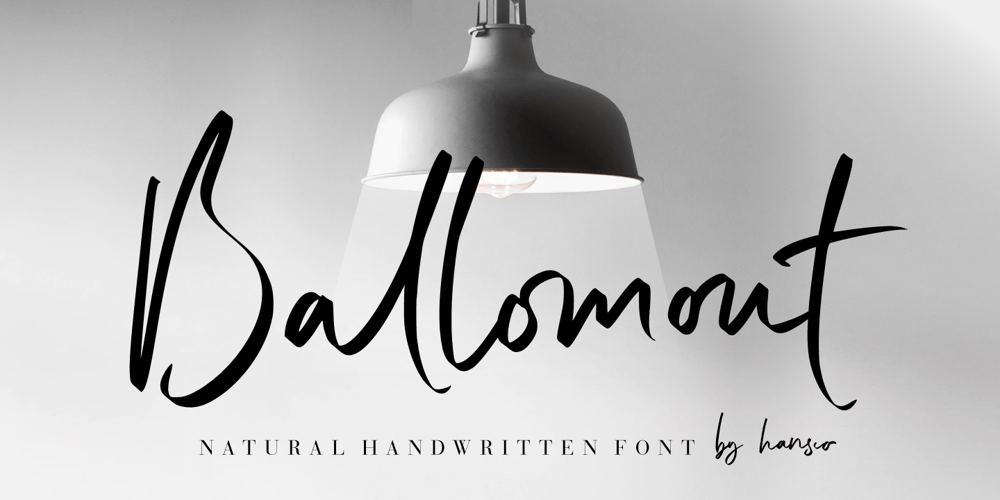
Ballomont
Ballomont font
Ballomont Font Family was designed by Burhan Afif and published by HansCo. Ballomont contains 1 styles and family package options. Ballomont is a Bold Luxury Handwriten that is luxurious in a casual and distinctive style. With each letter having been carefully designed to make your text look beautiful. With its modern script style, this font will be suitable for various projects, for example: quotes, blog titles, branding, logos, fashion, invitations, greeting cards, posters, business cards, clothing, letters, stationery, and more.This one should make your designs instantly professional and amazingly! Be a perfect professional in a minute and start creating with this font today!Enjoy